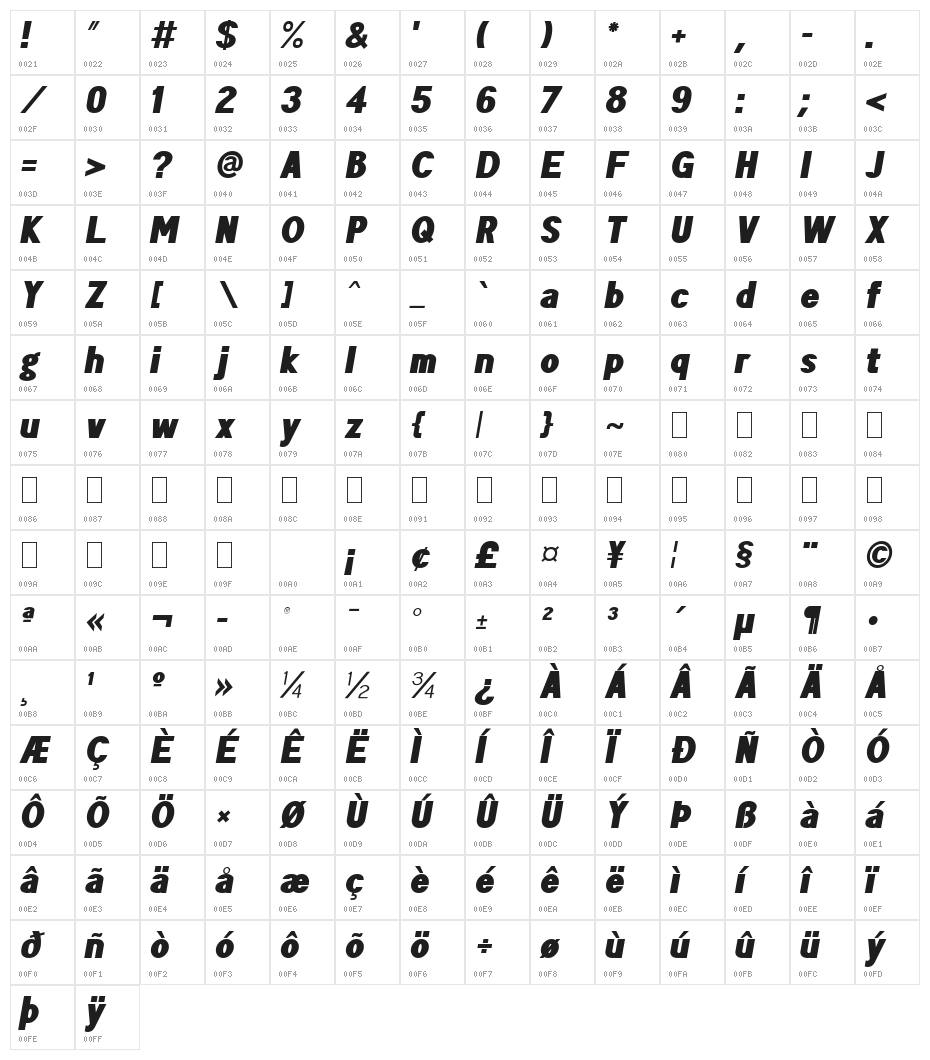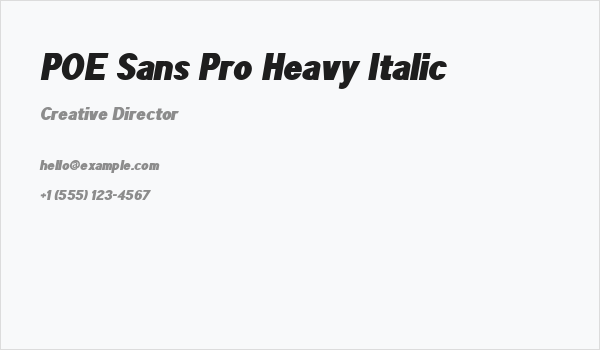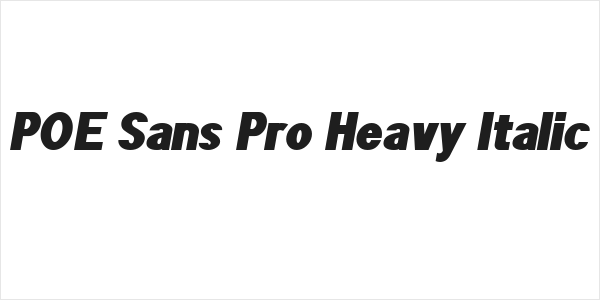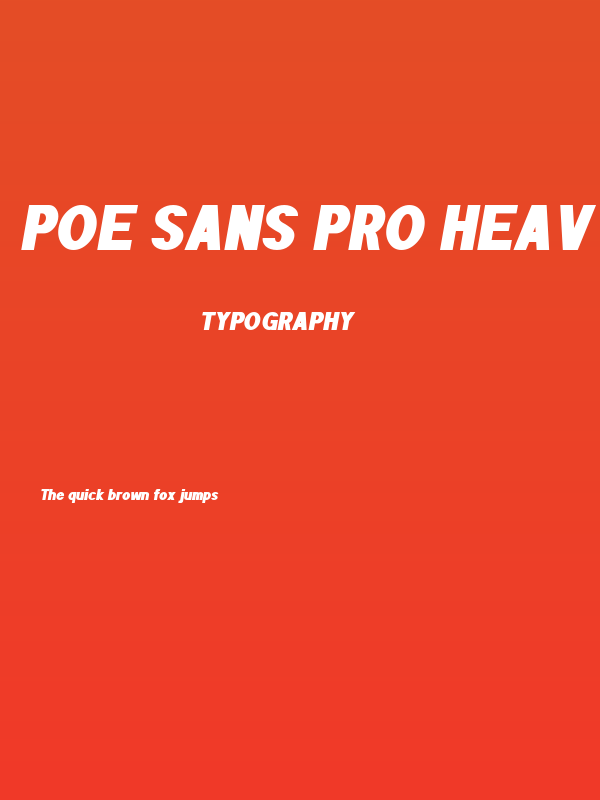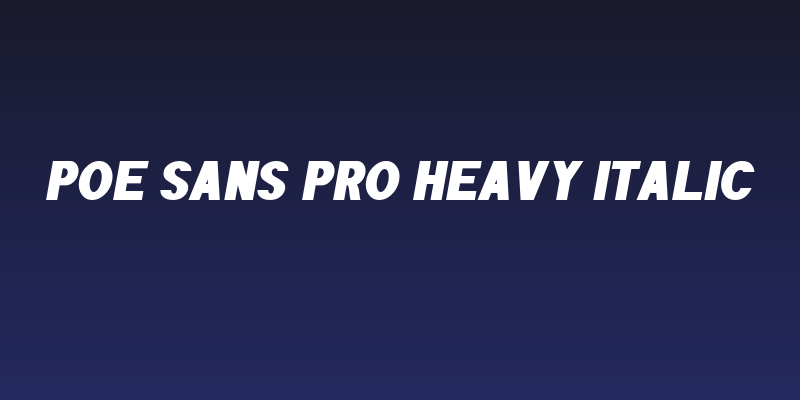
POE Sans Pro Heavy Italic Font
POE Sans Pro Heavy Italic Description
This font exhibits a bold and dynamic presence with its heavy weight and italicized style. The characters are robust and convey a sense of strength and assertiveness. The uppercase and lowercase letters maintain a consistent thickness, providing a uniform appearance. The numerals are clear and easily distinguishable, while the special characters are well-defined and complement the overall design. The italic slant adds a sense of motion and modernity, making it suitable for impactful and attention-grabbing text.
| Use Case | Headlines, Logos, Advertising |
| Proposed Projects | Ideal for headlines, branding, advertising, and any project requiring a bold statement. |